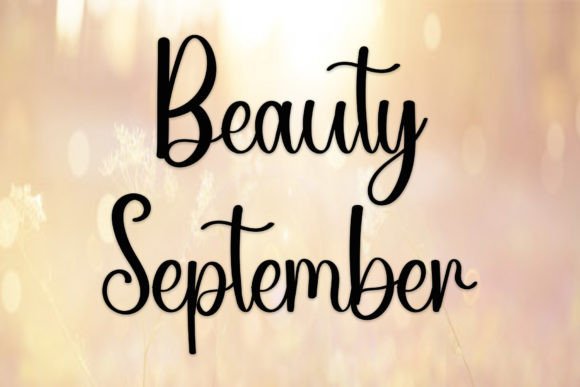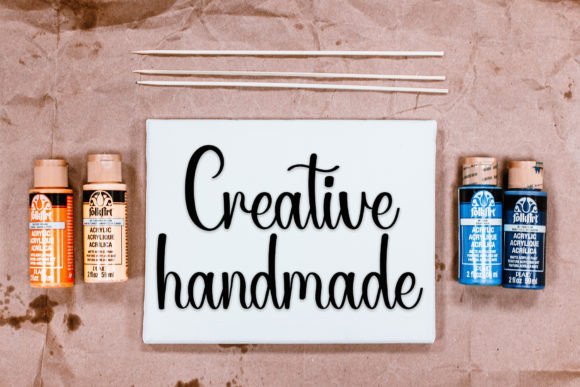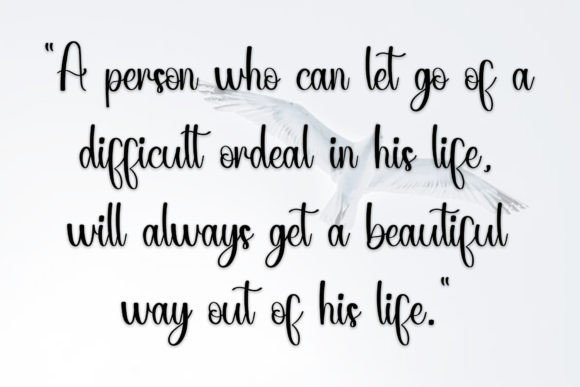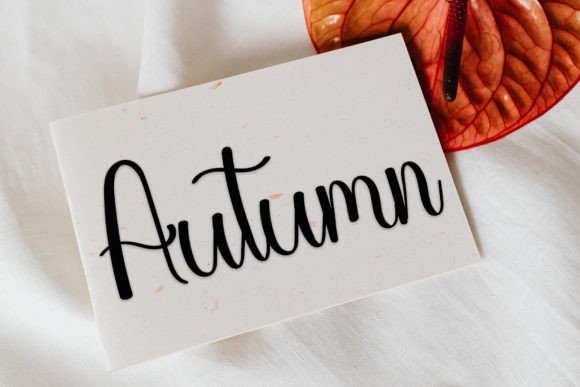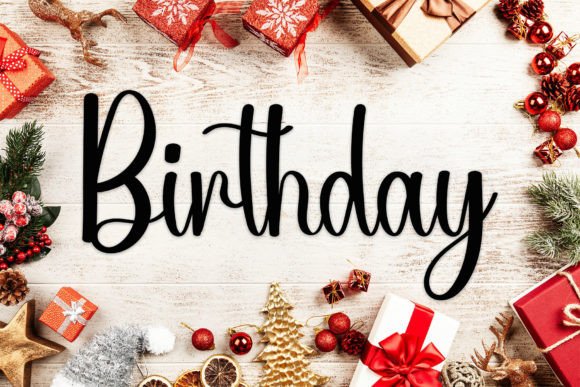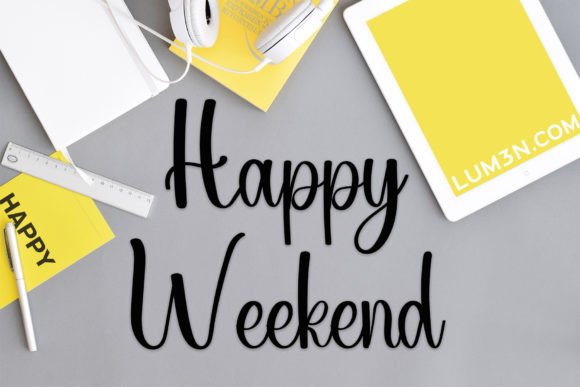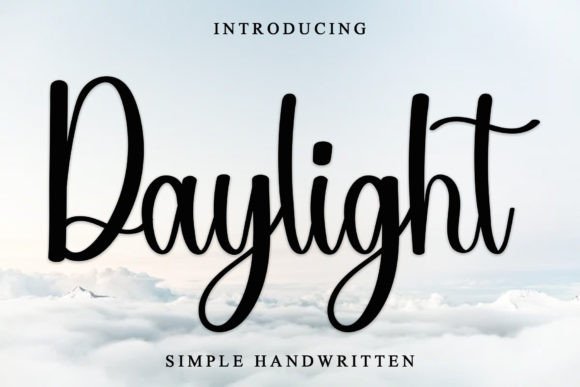
Introducing Daylight Font: The Ultimate Holiday Typeface
The holiday season is upon us, and what better way to get into the spirit than with a festive and merry typeface? Look no further than Daylight Font, a decorative and whimsical font that’s perfect for adding a touch of enchantment to your designs. In this article, we’ll dive into the world of Daylight Font and explore its features, benefits, and uses.
Daylight Font is a holiday-themed typeface that’s designed to capture the magic and wonder of the season. With its decorative elements and whimsical flair, this font is sure to bring a cheerful and nostalgic ambiance to your words. Whether you’re designing greeting cards, gift tags, or holiday-themed projects, Daylight Font is the perfect choice.
Daylight Font is specifically designed for holiday projects, making it a must-have for designers and crafters. Its festive and merry vibe is perfect for:
- Greeting cards: Create personalized and festive greeting cards that will make your loved ones feel special.
- Gift tags: Add a touch of elegance and whimsy to your gift tags with Daylight Font.
- Holiday-themed projects: From invitations to party decorations, Daylight Font is the perfect choice for any holiday-themed project.
One of the best features of Daylight Font is that it’s PUA (Private Use Area) encoded. This means that you can access all of the amazing glyphs and ligatures with ease. With PUA encoding, you can:
- Easily access special characters and glyphs.
- Create beautiful and intricate designs.
- Save time and effort when working with your designs.
Daylight Font offers a range of benefits for designers and crafters, including:
- Unique and festive designs: Stand out from the crowd with Daylight Font’s unique and festive designs.
- Ease of use: With PUA encoding, you can easily access and use the font’s special characters and glyphs.
- Time-saving: Create beautiful designs quickly and easily with Daylight Font.
- Scalability: Use Daylight Font for a range of projects, from small gift tags to large-scale party decorations.
Tips and Tricks for Using Daylight Font
Here are some tips and tricks for getting the most out of Daylight Font:
- Experiment with different colors and textures: Add an extra layer of depth and interest to your designs with different colors and textures.
- Mix and match glyphs: Create unique and intricate designs by mixing and matching Daylight Font’s glyphs and ligatures.
- Use it with other fonts: Pair Daylight Font with other fonts for a unique and eye-catching look.
Daylight Font is a festive and merry typeface that’s perfect for adding a touch of enchantment to your designs. With its decorative elements, whimsical flair, and PUA encoding, this font is a must-have for designers and crafters. Whether you’re creating greeting cards, gift tags, or holiday-themed projects, Daylight Font is the perfect choice. So why wait? Get your hands on Daylight Font today and let your typography shine with the magic of Christmas Font!